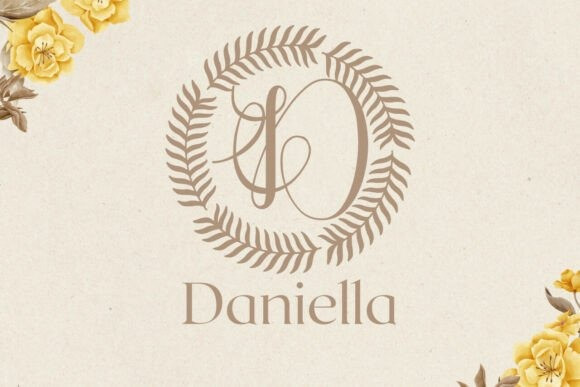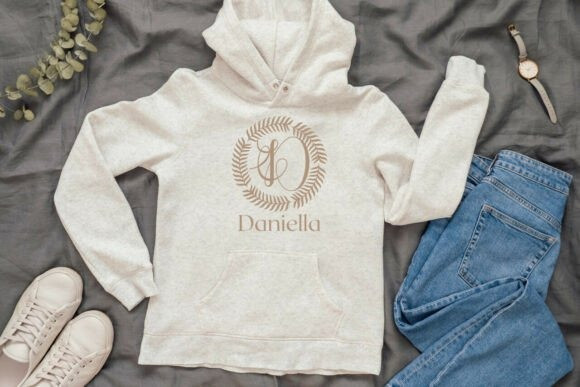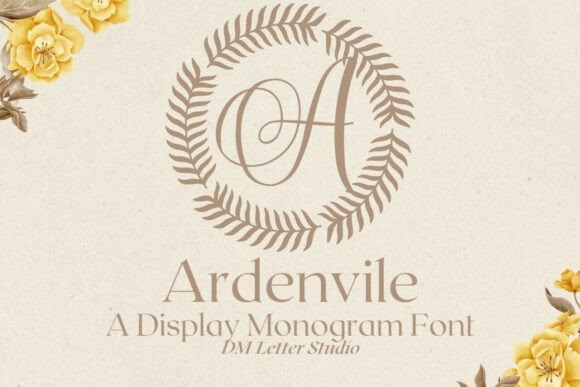
Ardenvale Monogram Font
Ardenvale Monogram Font turns simple initials into calm, elegant marks. The lines feel smooth and balanced. Counters stay open, so even tiny tags look clear. Use it for wedding suites, boutique logos, gift packaging, and keepsake items. Moreover, this Monogram Font pairs beautifully with soft serifs and modern sans fonts. Therefore, your layouts feel refined without extra effort.
Set single, double, or triple initials for logos and seals. Then add thin borders, laurel rings, or simple shapes around the mark. Since Ardenvale favors symmetry, you build neat layouts in minutes. As a result, your thumbnails stand out on crowded marketplaces. Also, the letters scale well from jewelry cards to large venue signs.
Keep initials large and let negative space breathe. Pair the main monogram with a quiet serif or humanist sans for body text. Meanwhile, add micro shadows, fine-line frames, or a thin inner stroke for depth. Because the structure feels airy, metallic accents and textured papers raise the perceived value. However, keep wording short and let the Monogram Font stay the hero.